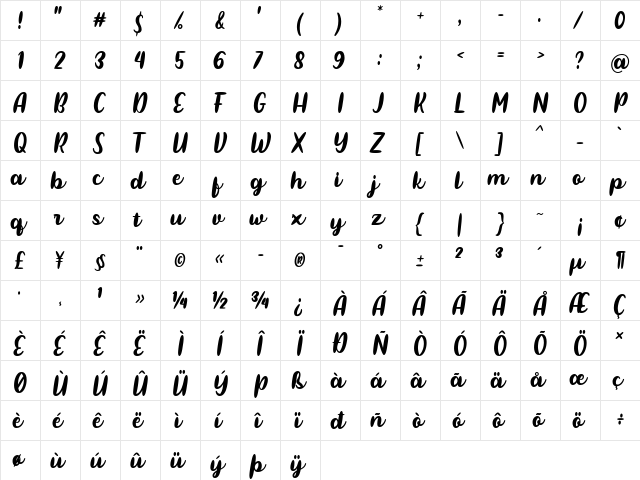
Pulen Regular
| Foundry | 7NTypes |
| Designer | Rifki; Situjuh Nazara |
Design Context for Pulen Typeface
Pulen is a composed and adaptable typeface that performs quietly and consistently across a wide range of design contexts.
Pro Tip: Pair Pulen with a font of contrasting weight or personality to build a more expressive typographic hierarchy.